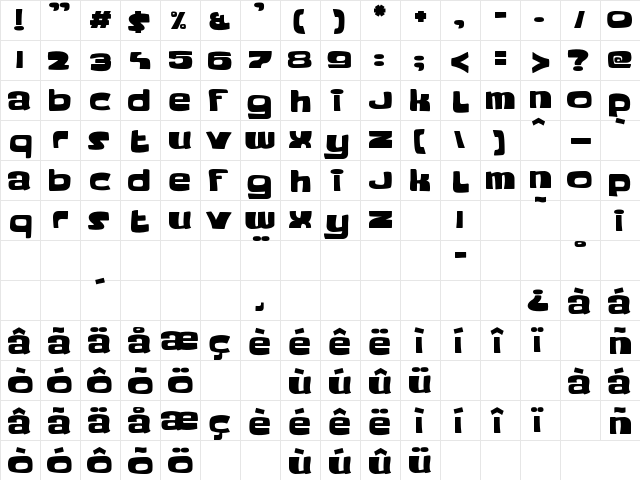
Playtimes Regular
Design Context for Playtimes Typeface
Playtimes is a composed and adaptable typeface that performs quietly and consistently across a wide range of design contexts.